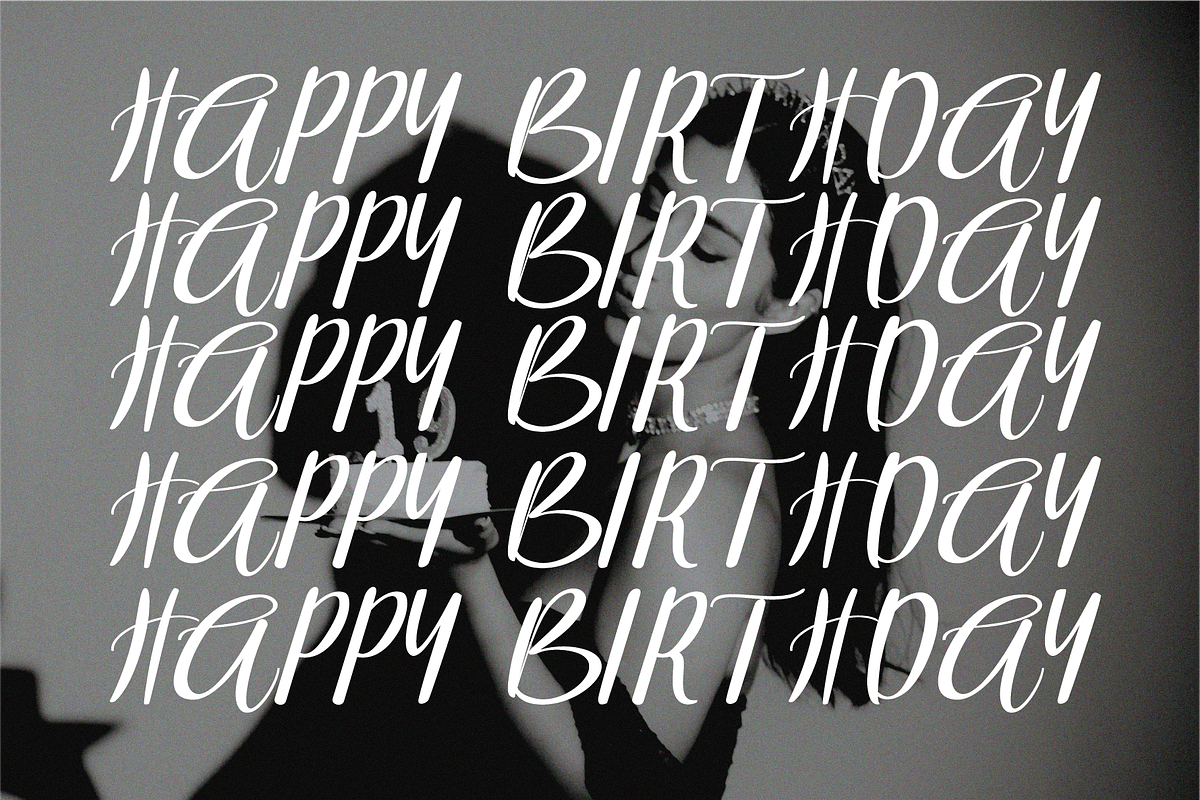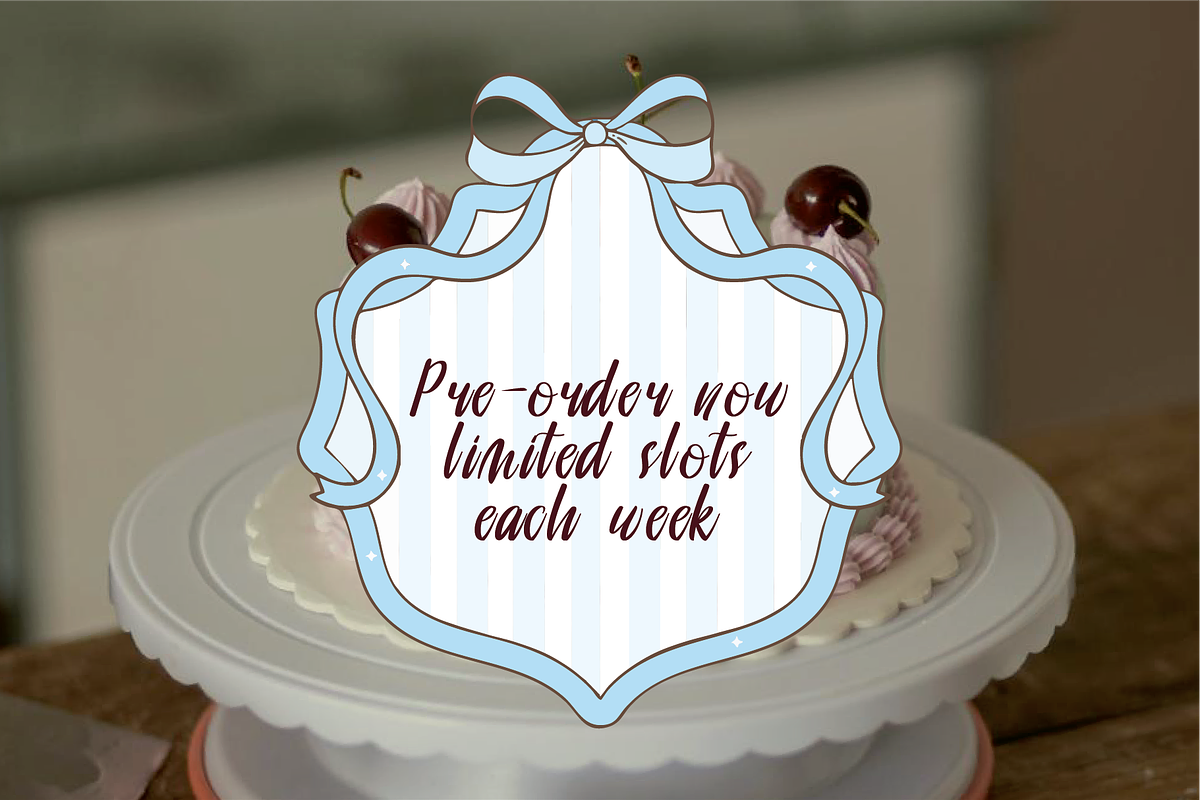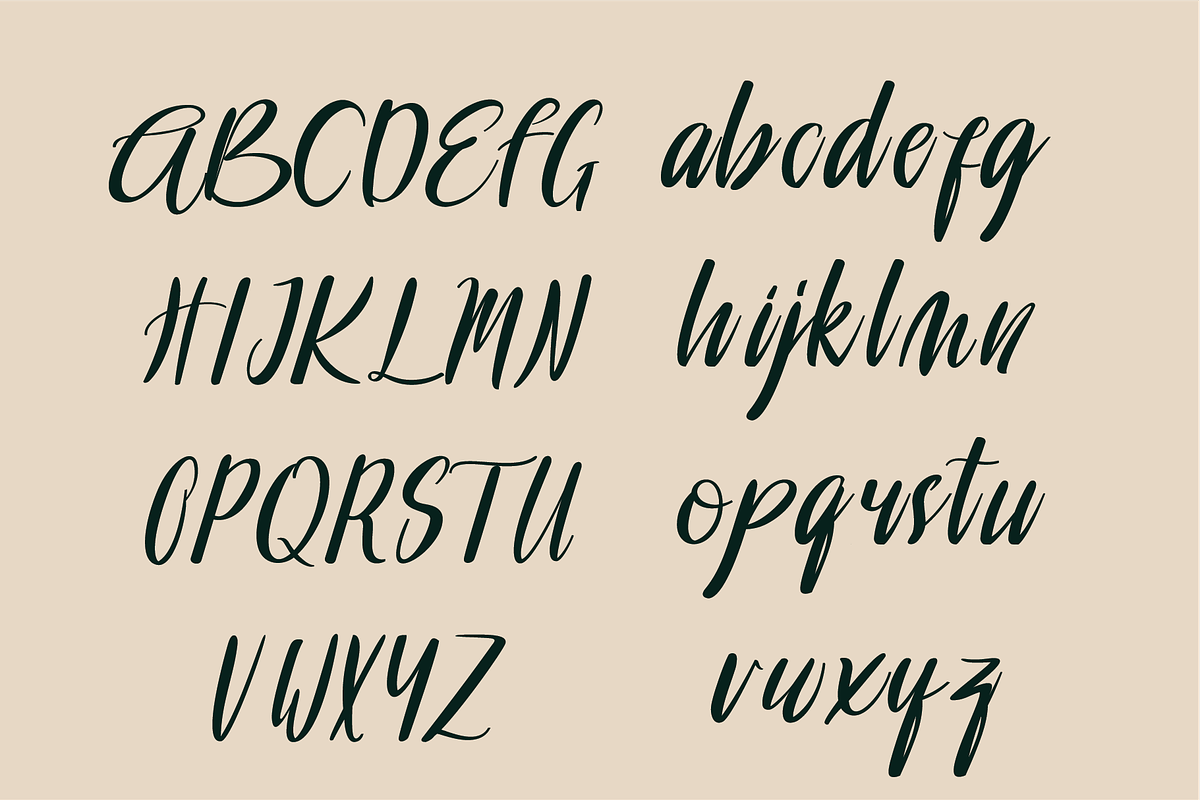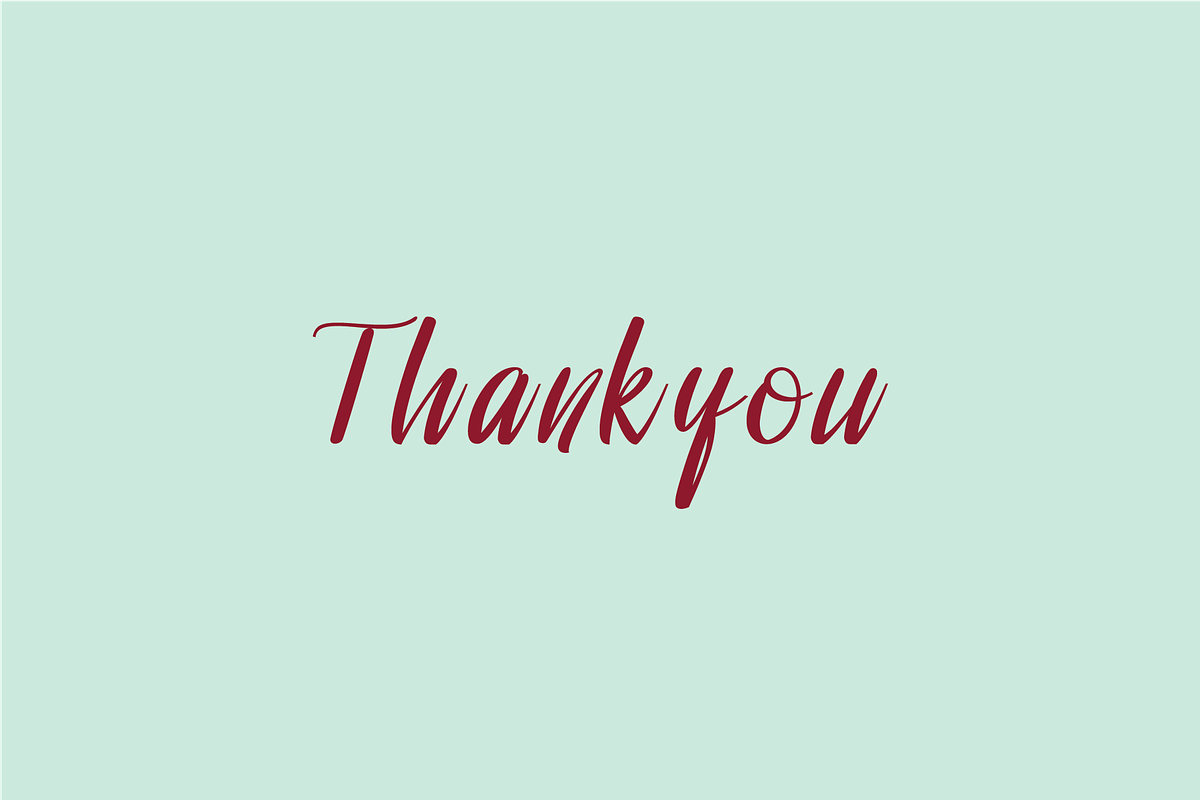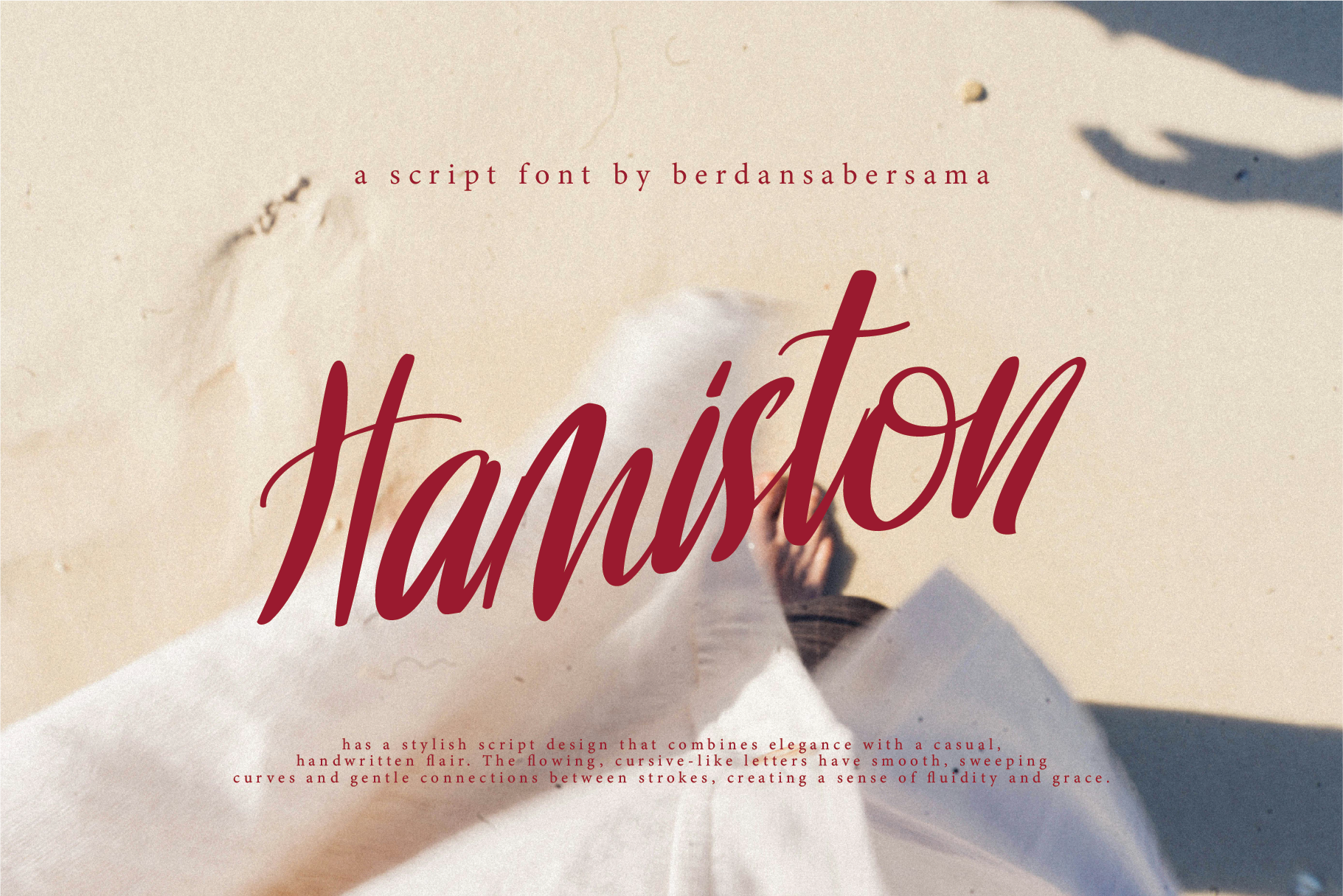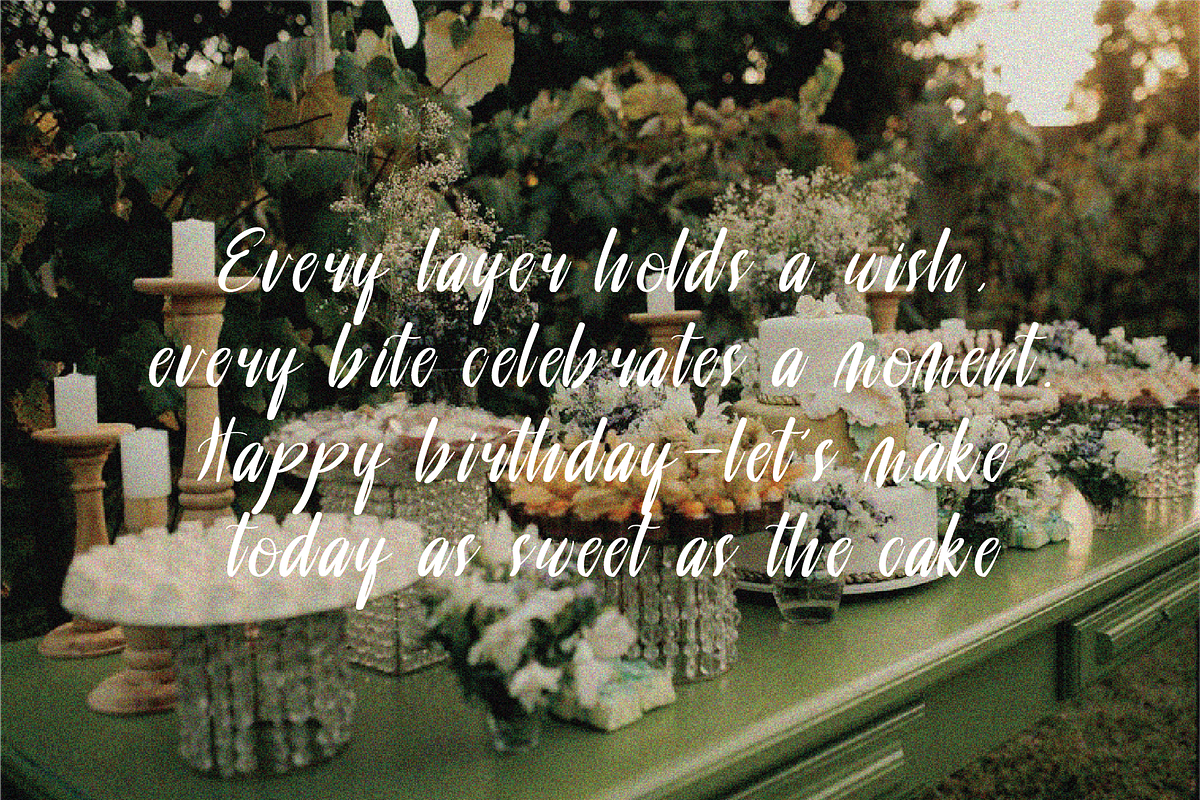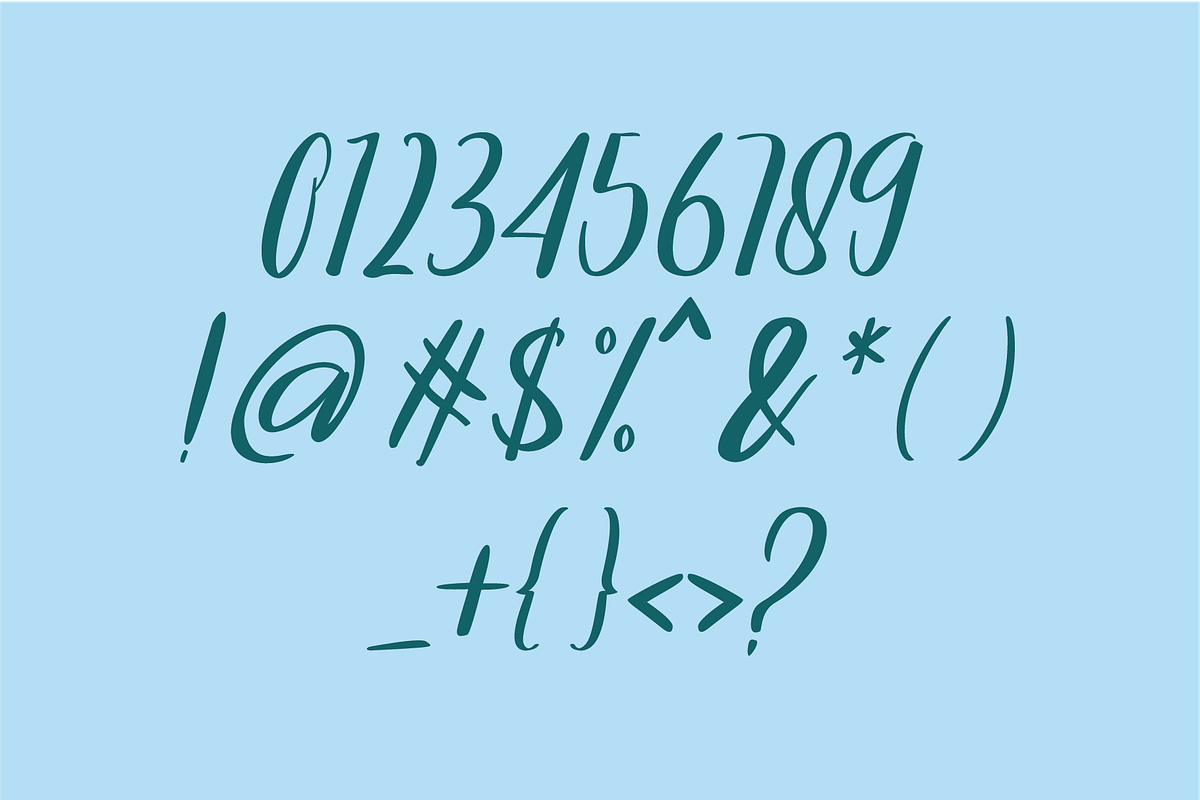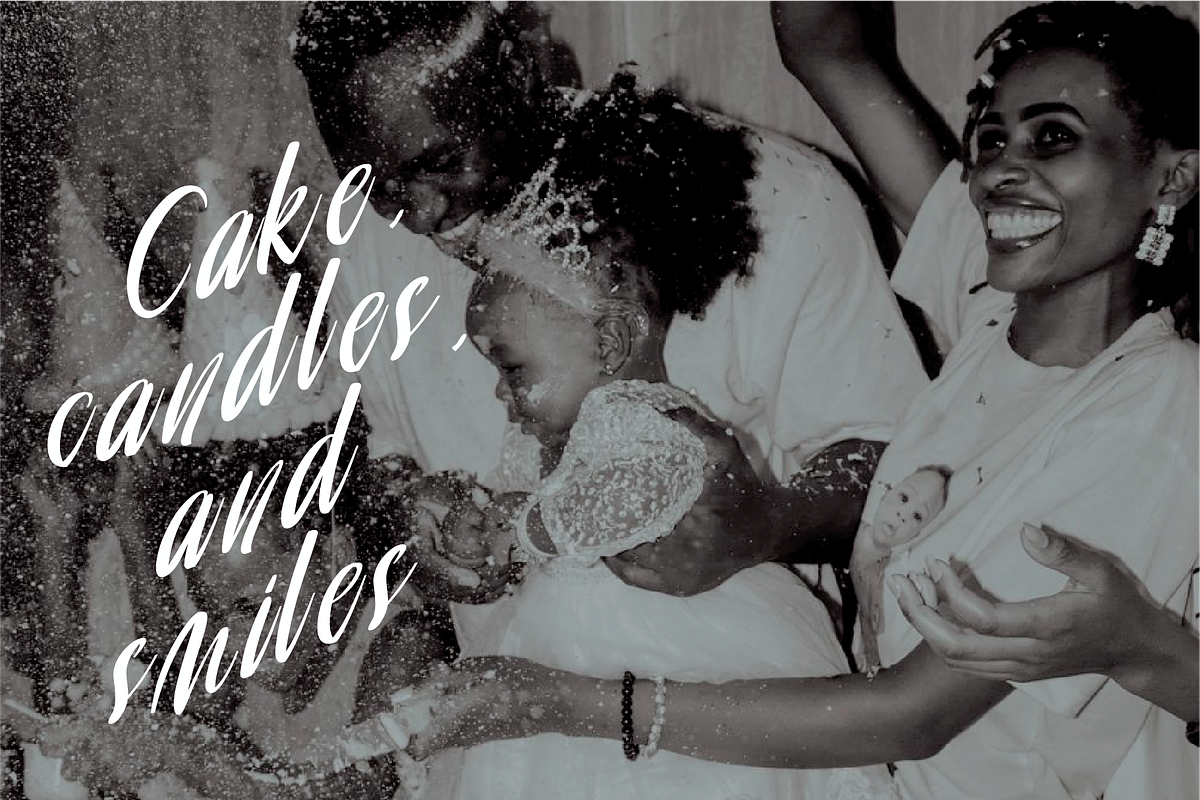
Hamiston a Script Font
Hamiston is a stylish handwritten script font with smooth curves and a natural handwritten rhythm. Its strokes feel free, confident, and expressive—creating a warm and personal tone in every word.
- Numbers, marks and symbols